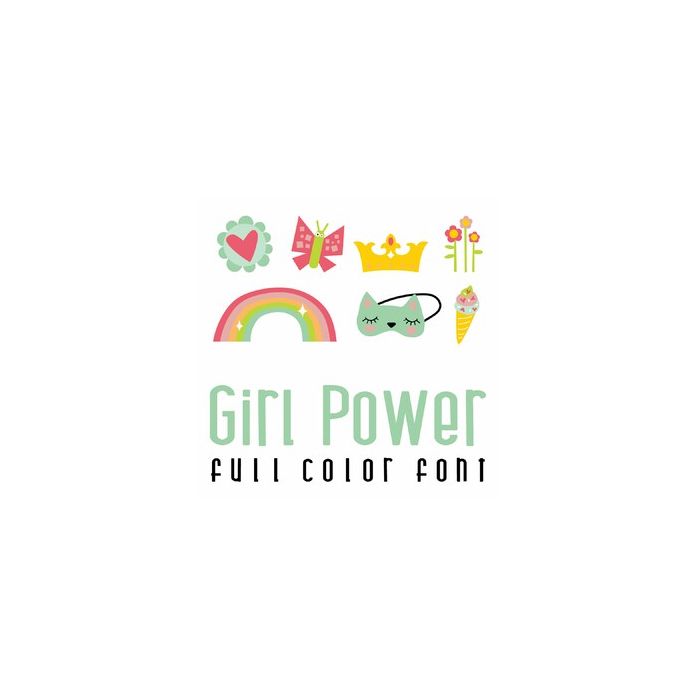
This fun doodlebat font features 26 adorable girly images from rainbows, flowers to sleepovers. Perfect for cards, gifts, decor, crafts, scrap book pages, planner stickers and more!